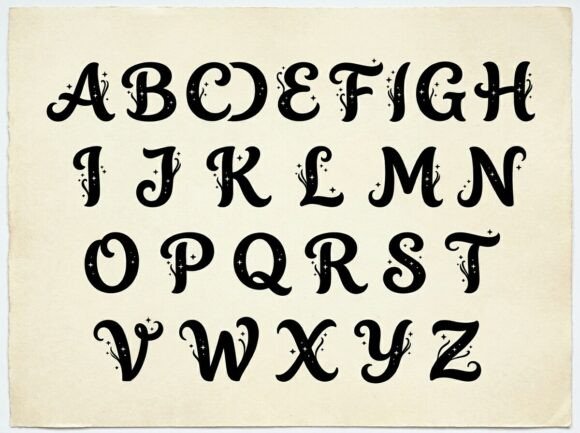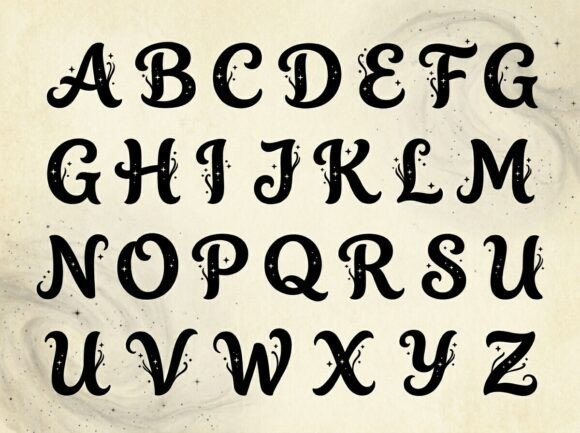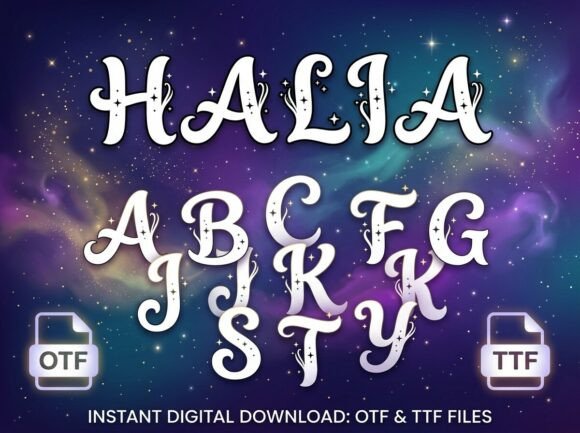
Introducing Halia Font: The Ultimate Display Font for Creative Minds
Are you tired of using the same old fonts for your creative projects? Look no further than Halia Font, a stunning decorative display font designed to turn heads. With its unique artistic elements and strong visual personality, Halia Font is perfect for creators who want to break away from the ordinary and make a statement.
What Makes Halia Font So Special?
Halia Font is a versatile decorative font that is specifically designed for bold headlines, artistic logos, and creative packaging. Its unique artistic elements and strong visual personality make it perfect for projects that require a professional and polished finish. Whether you’re a designer, craftsperson, or DIY enthusiast, Halia Font is sure to elevate your creative projects to the next level.
Key Features of Halia Font
- Unique Artistic Elements: Halia Font features unique artistic elements that set it apart from other fonts. Its decorative style is perfect for creating eye-catching headlines, logos, and packaging.
- Strong Visual Personality: This font has a strong visual personality that is sure to make a statement. Its bold and decorative style is perfect for projects that require a professional and polished finish.
- Versatile: Halia Font is versatile enough for use in a variety of creative projects, including bold headlines, artistic logos, and creative packaging.
- Professional and Polished Finish: This font is designed to provide a professional and polished finish, making it perfect for projects that require a high level of sophistication.
⚠️ IMPORTANT NOTE BEFORE PURCHASE: Halia Font is an ALL-CAPS (Uppercase Only) display typeface. It does not include lowercase letters. It is specifically designed for high-impact headlines, logos, and decorative initials where every letter is a work of art.
Why Choose Halia Font?
There are many reasons why Halia Font is the perfect choice for creative projects. Here are just a few:
- Stand Out from the Crowd: With its unique artistic elements and strong visual personality, Halia Font is sure to help your project stand out from the crowd.
- Professional and Polished Finish: This font is designed to provide a professional and polished finish, making it perfect for projects that require a high level of sophistication.
- Versatile: Halia Font is versatile enough for use in a variety of creative projects, including bold headlines, artistic logos, and creative packaging.
- Use it for Headlines: Halia Font is perfect for creating eye-catching headlines that are sure to grab attention.
- Use it for Logos: This font is also great for creating artistic logos that are sure to make a statement.
- Use it for Packaging: Halia Font is versatile enough for use in creative packaging projects, including labels, tags, and more.